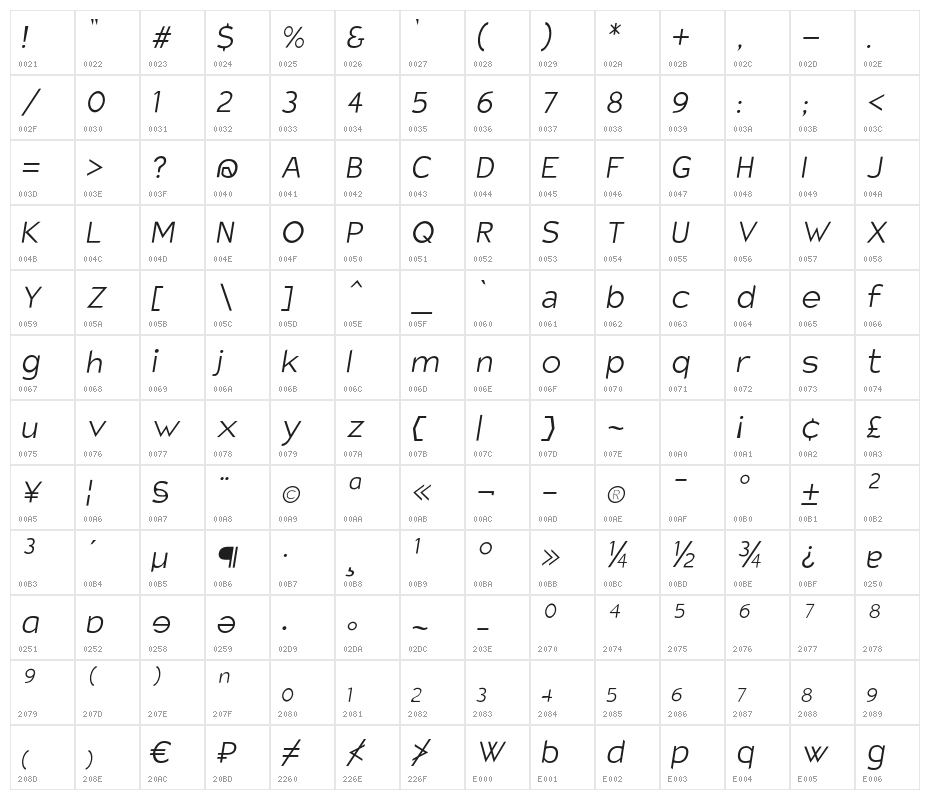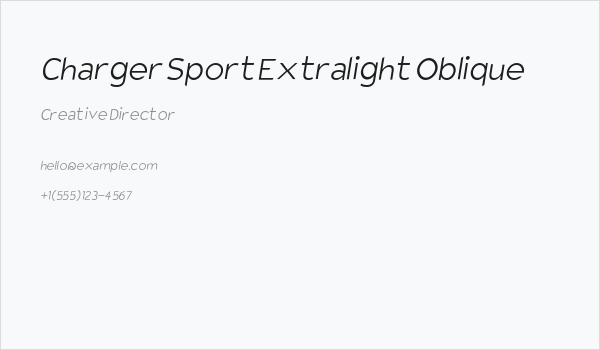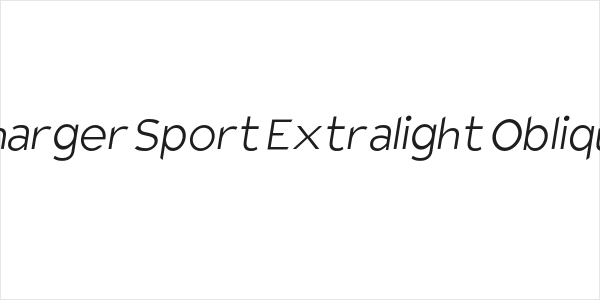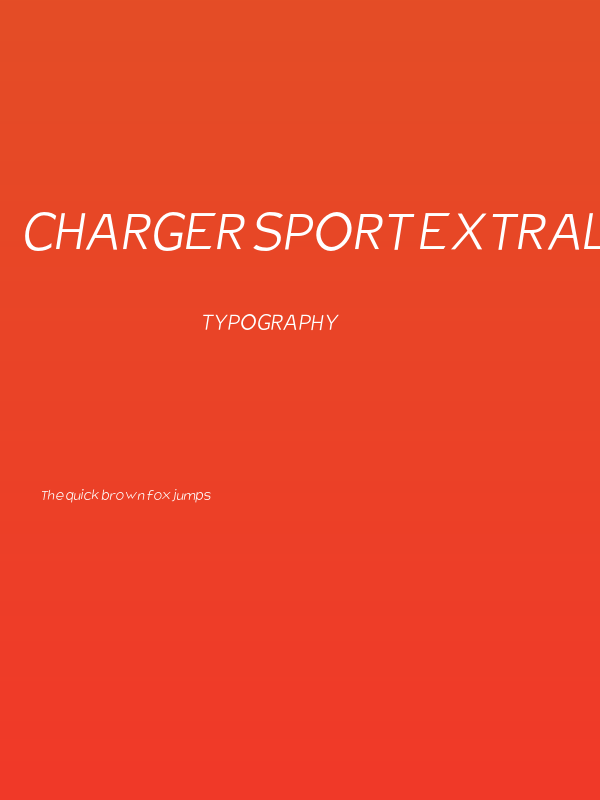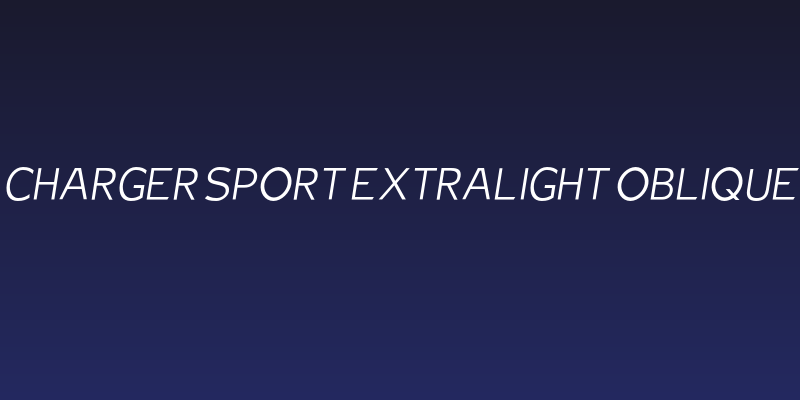
Charger Sport Extralight Oblique Font
Charger Sport Extralight Oblique Description
This font features a sleek and modern design with a subtle oblique slant, giving it a dynamic and sporty appearance. The characters are crafted with an extra-light weight, providing an airy and elegant feel. The sans-serif style ensures clean lines and a contemporary look, making it highly versatile for various design applications. The character set includes uppercase and lowercase letters, numbers, and a range of special characters, all maintaining a consistent and cohesive style. The spacing between characters is normal, allowing for readability while maintaining a stylish aesthetic. The font's low contrast in stroke thickness adds to its minimalist and refined appearance.
| Use Case | Headlines, Logos, Advertising |
| Proposed Projects | Ideal for sports branding, modern websites, tech startups, and dynamic advertising campaigns. |